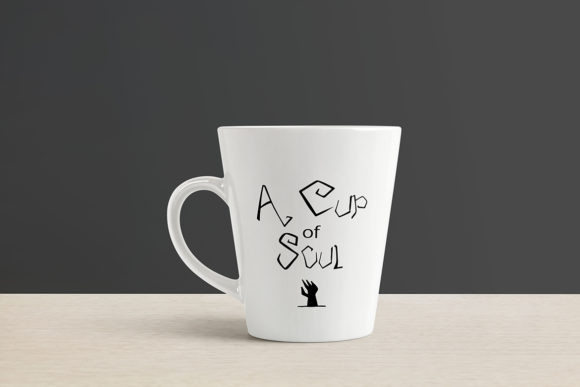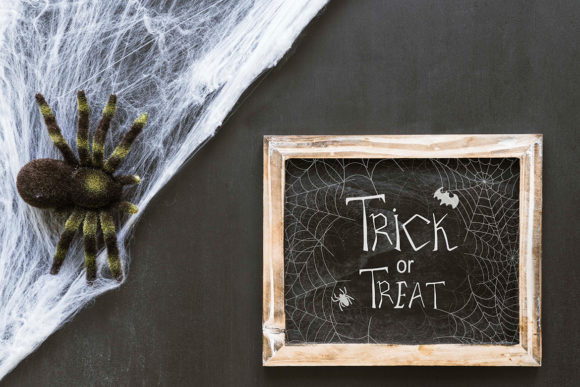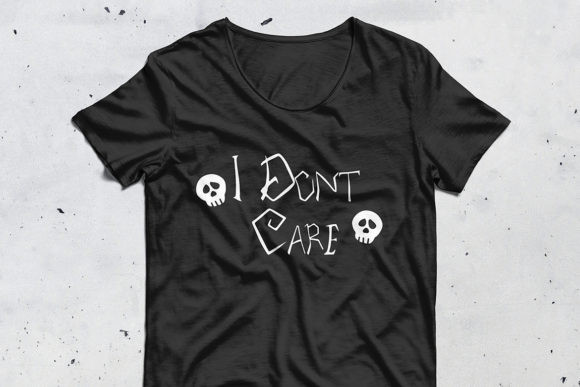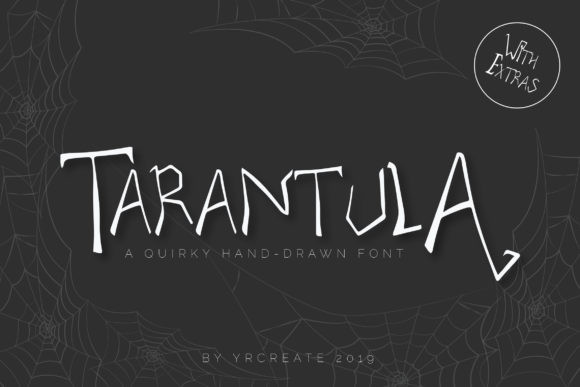
Tarantula Font
Nothing for arachnophobes: Inspired by spiders and cobwebs, Tarantula is a weird and thin Halloween-themed display font that will add a quirky feel to any craft.